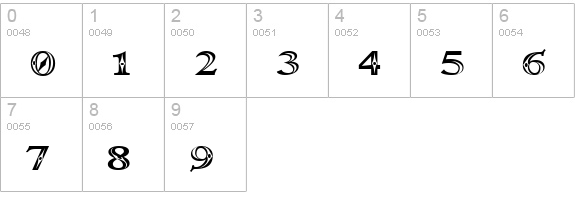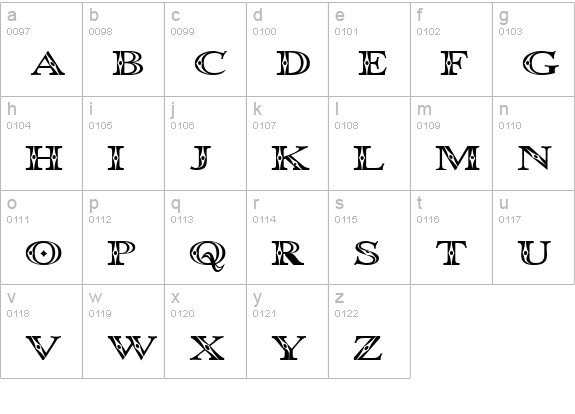
Occoluchi Font Details
Introducing Occoluchi font, a stunning display typeface that exudes elegance and sophistication. With its sleek lines and unique design, Occoluchi is perfect for creating eye-catching headlines, logos, and branding materials. This versatile font is sure to make your projects stand out from the crowd. What's even better is that Occoluchi font is completely free to download at FontsMarket.com. Now you can access this beautiful typeface without breaking the bank. Whether you're a seasoned designer or just starting out, Occoluchi font is a must-have addition to your font collection. Don't miss out on the opportunity to elevate your designs with the timeless beauty of Occoluchi font. Download it for free today and unleash your creativity like never before.